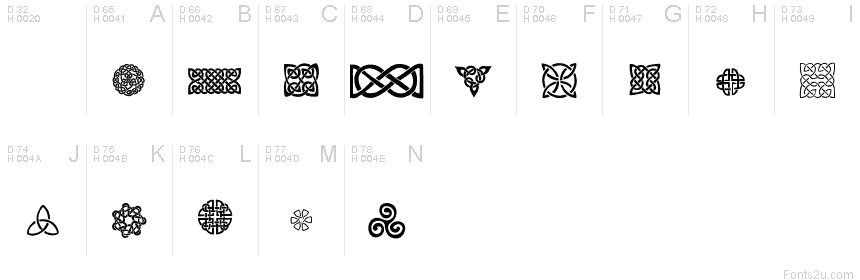
CeltiCons
CeltiCons font by Typologic is a free fantastic dingbats typeface that turns Celtic ornament into a ready-to-use toolkit. Each glyph is a crisp black icon: braided knots, ringed crosses, spiraled triskele forms, and dense woven tiles that feel like carved stone or inked tattoo lines. The icons are clean and consistent, so they drop into layouts without awkward mismatches in weight or style.
Using CeltiCons, you can quickly build borders for fantasy book covers, badges for folk or pagan festivals, symbols for RPG maps, logo marks for craft brands, or decorative spots in posters, packaging, and invitations. This free font works beautifully when set large as seals or emblems, then paired with a simple serif or sans body font to keep the intricate knots in the spotlight.